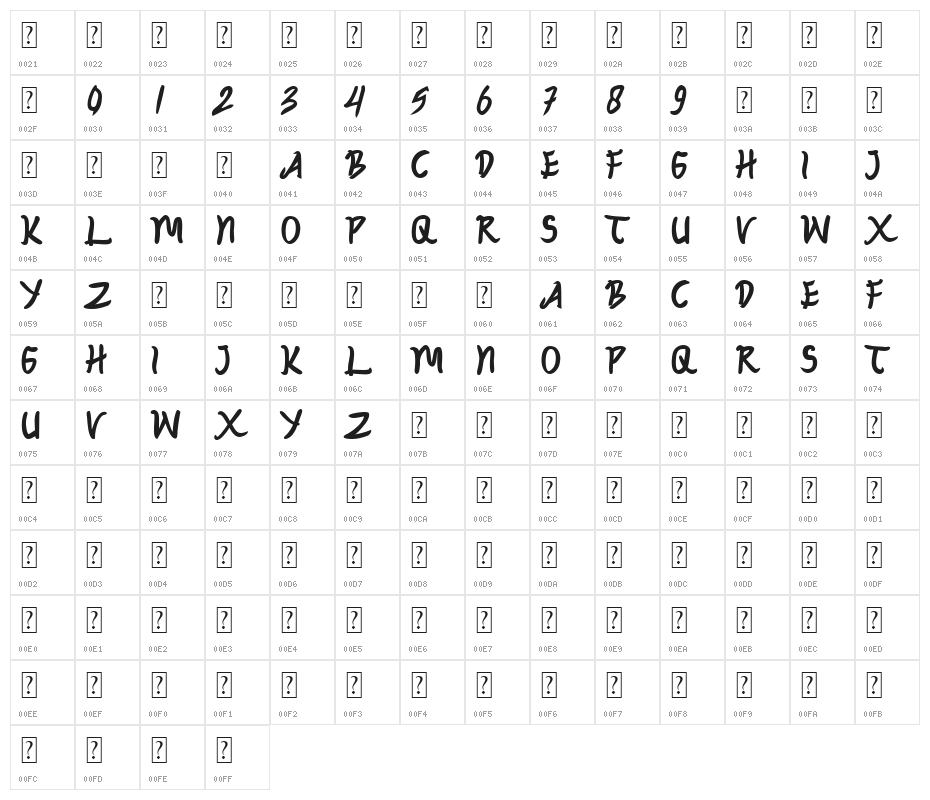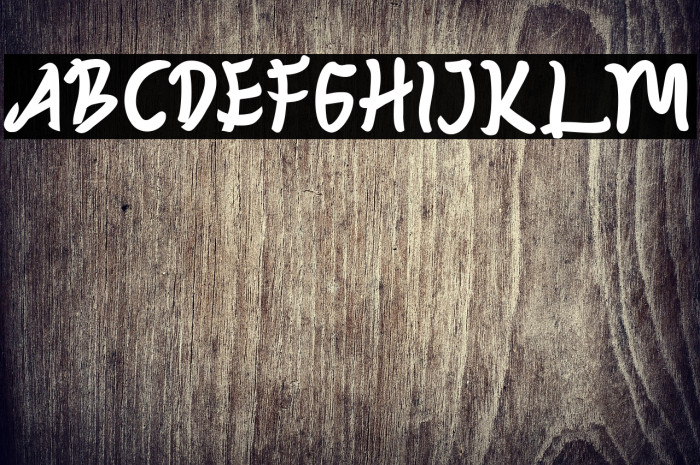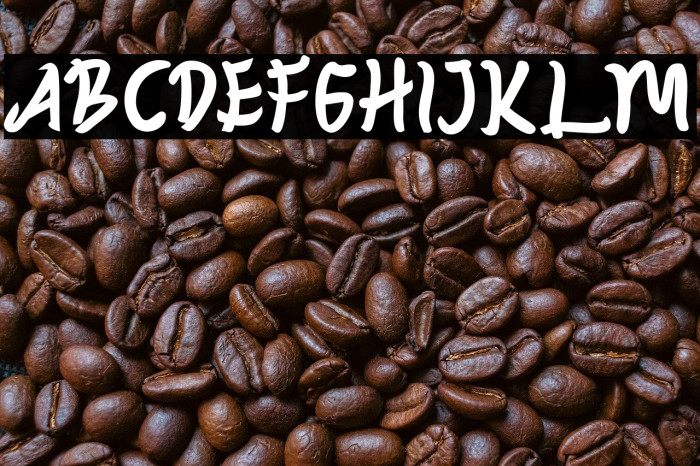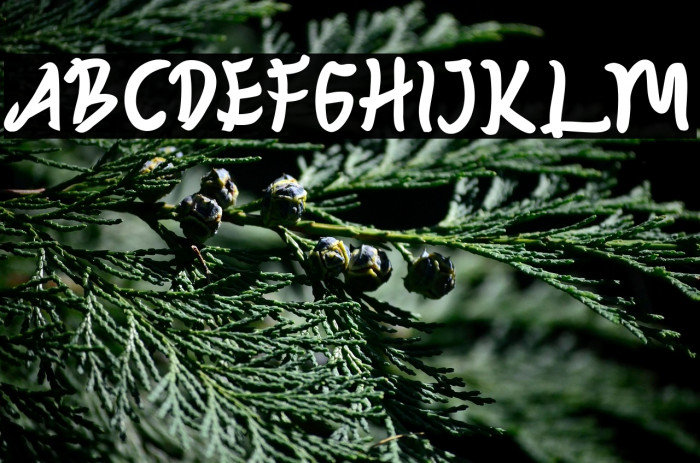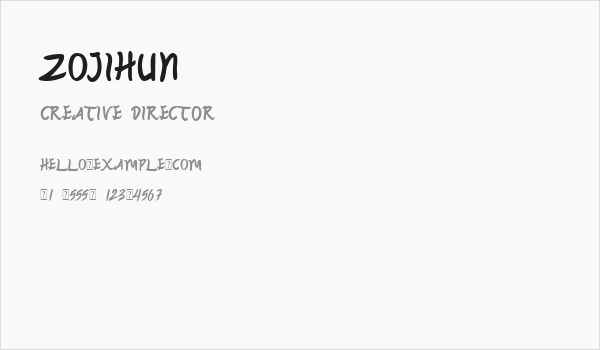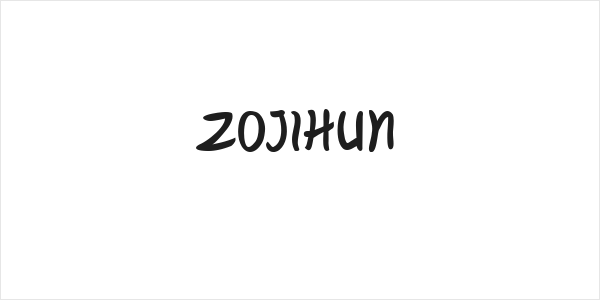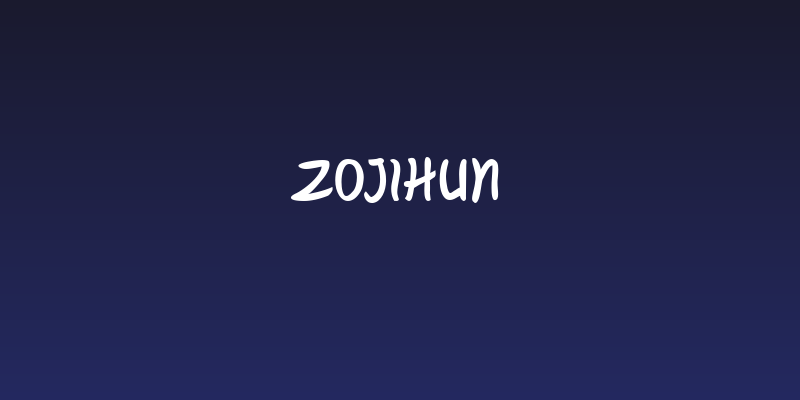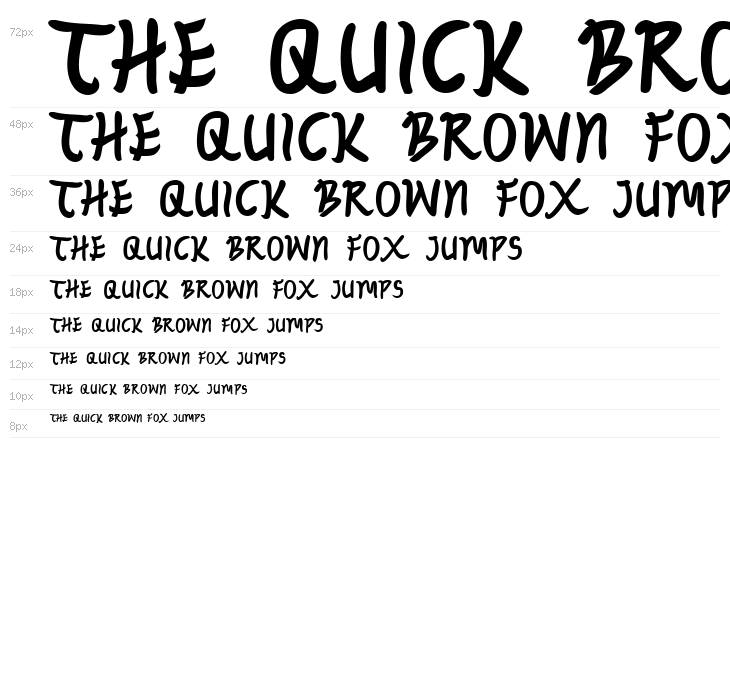
ZOJIHUN Font
ZOJIHUN Description
This font features a dynamic and flowing script style, characterized by its bold and expressive strokes. The letters exhibit a slight slant, adding to the sense of movement and energy. Each character is distinct, with a playful yet elegant appearance, making it suitable for creative and artistic projects. The numbers maintain the same lively style, ensuring consistency across all characters. The font's unique flair is further enhanced by its smooth curves and sharp edges, providing a modern twist on traditional script fonts.